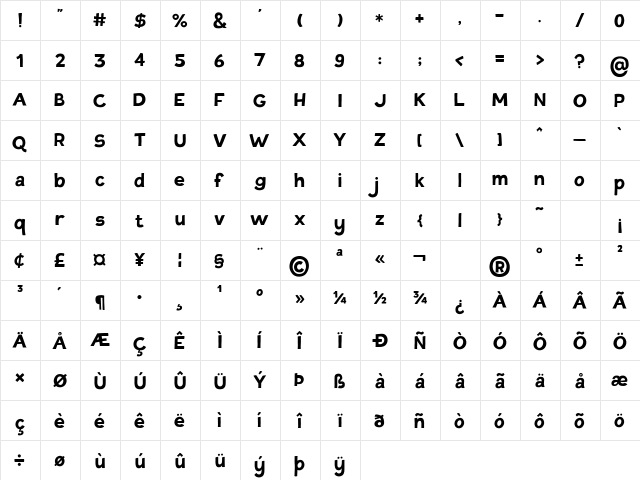
Tovari Sans Bold
Bold ·  Verneri Kontto ·
DesignerVerneri Kontto
Design Context for Tovari Sans Typeface
Tovari Sans offers clean, dependable letterforms without strong stylistic allegiance, making it a practical choice for designers who need flexibility. Its bold stroke weight gives it real presence on the page.